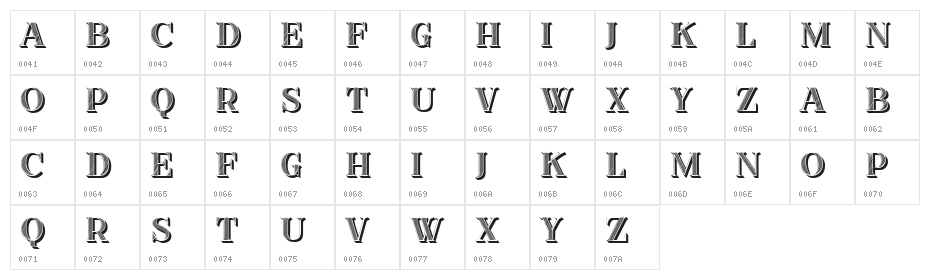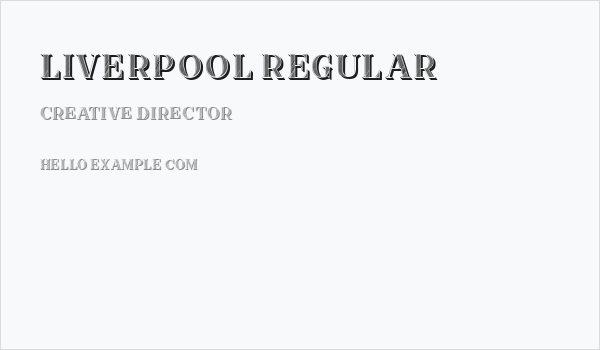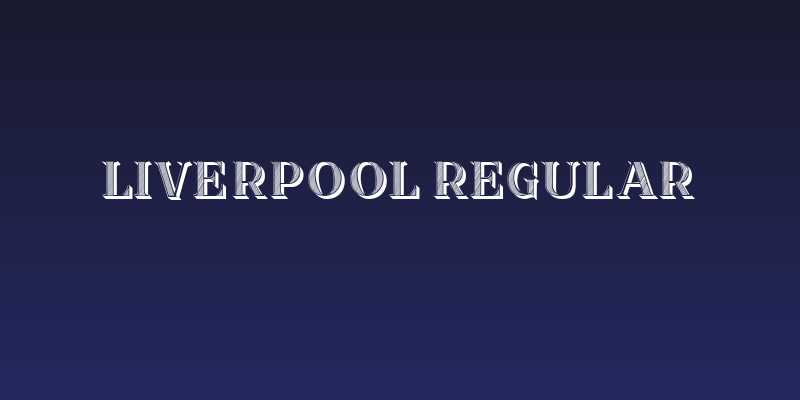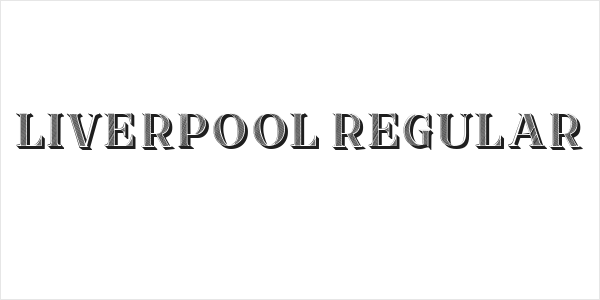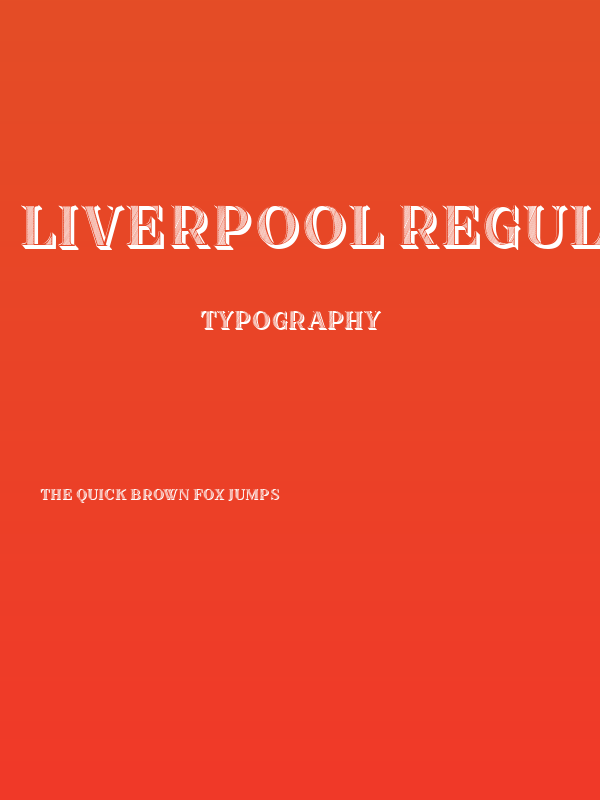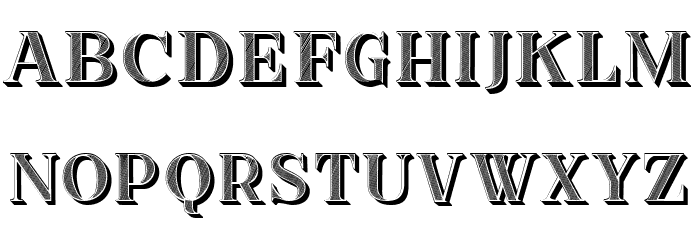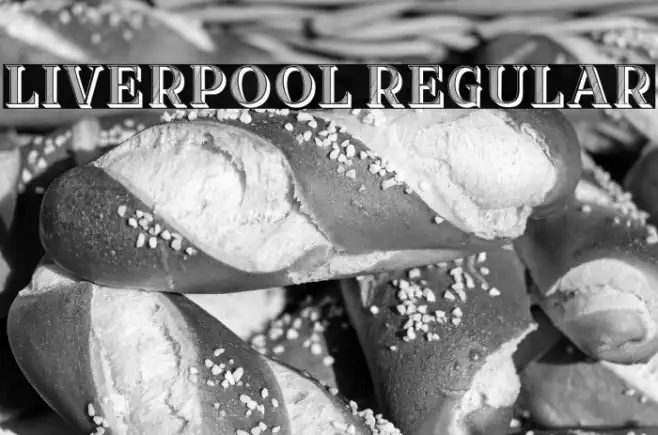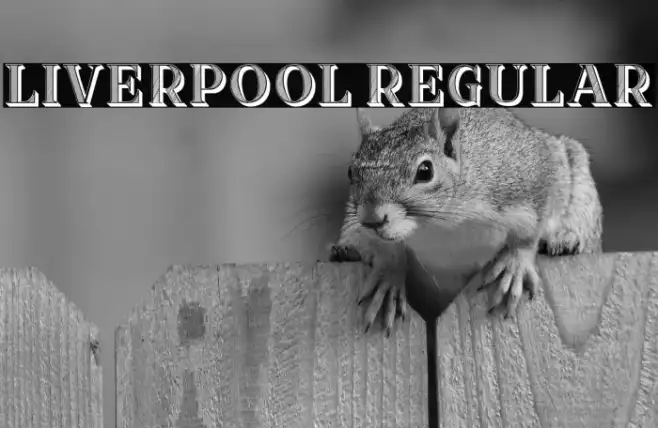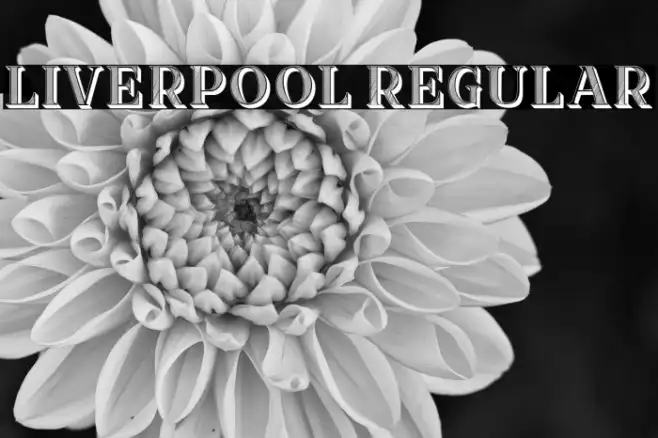
Liverpool Regular Font
Liverpool Regular Description
This font features a bold and striking design with a three-dimensional effect created by shadowing and layering. The uppercase letters are crafted with strong, angular serifs that give a sense of authority and presence. The intricate detailing within each character adds depth and texture, making it stand out in any design. Its structured form and bold appearance make it ideal for creating impactful statements. The font's unique style combines traditional serif elements with a modern twist, making it versatile for various creative applications.
| Proposed Projects | Ideal for branding, poster design, headlines, and any project requiring a bold, impactful typeface. |